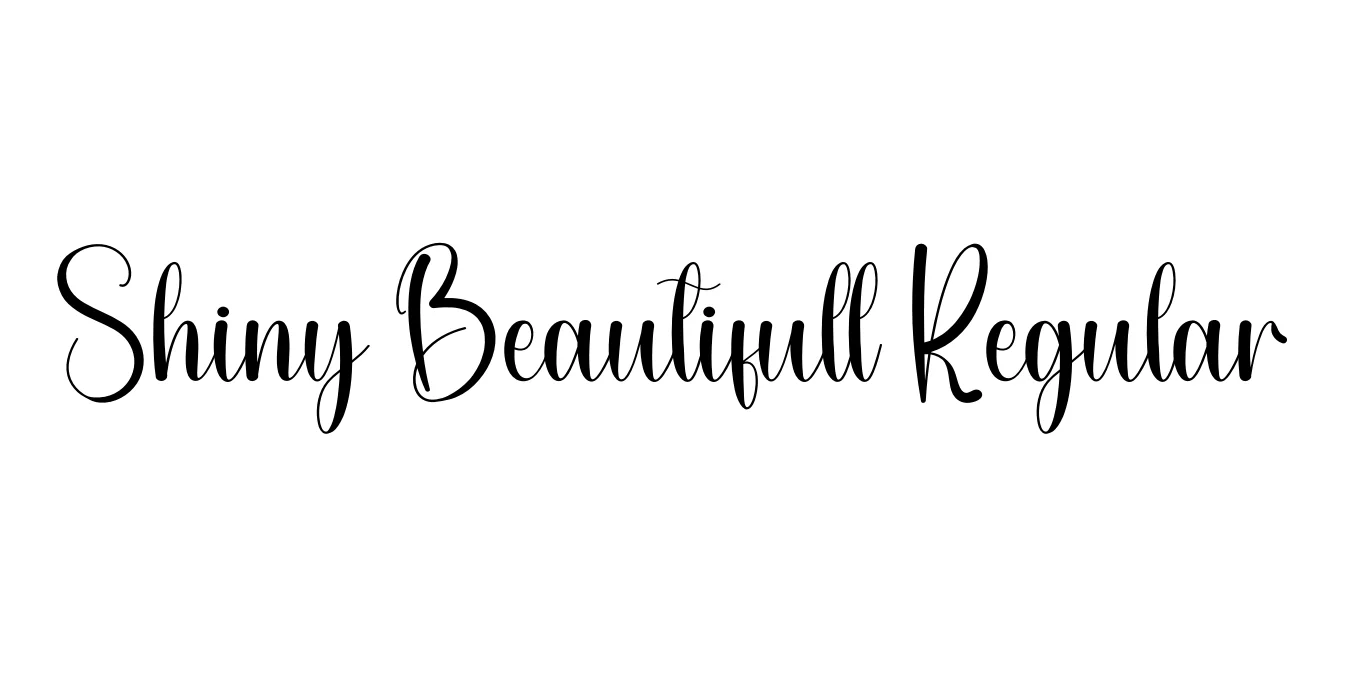
Shiny Beautifull Regular
Designed by Balibilly Design
Shiny Beautifull Regular is a sophisticated script typeface characterized by its flowing lines and elegant flourishes. It was crafted to bridge the gap between traditional handwriting and modern digital design, making it a favorite for projects requiring a touch of personal flair. The font features smooth, continuous strokes that mimic natural ink flow, providing an organic feel to any layout.
Over time, this font has gained popularity in the wedding and luxury branding industries due to its legibility and aesthetic charm. Its high-contrast strokes and varied baseline give it a rhythmic quality that captures the eye. Whether used for digital invitations or high-end packaging, Shiny Beautifull Regular remains a versatile choice for designers looking to convey intimacy and grace.
Shiny Beautifull Regular Best Uses
Ideal for invitations, RSVP cards, and seating charts.
Perfect for logos in the beauty, fashion, and lifestyle sectors.
Great for creating quote graphics and elegant Instagram stories.
Adds a premium feel to cosmetics and artisan product boxes.